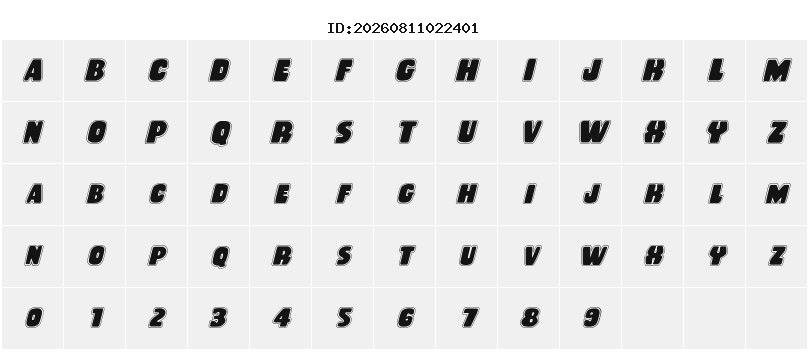
• Font Name: Rubber Boy Academy Italic
Rubber Boy Academy Italic.ttf is a modern, elegant sans-serif font designed for ultimate readability and visual harmony. Perfect for branding, headlines, web design, and print materials.